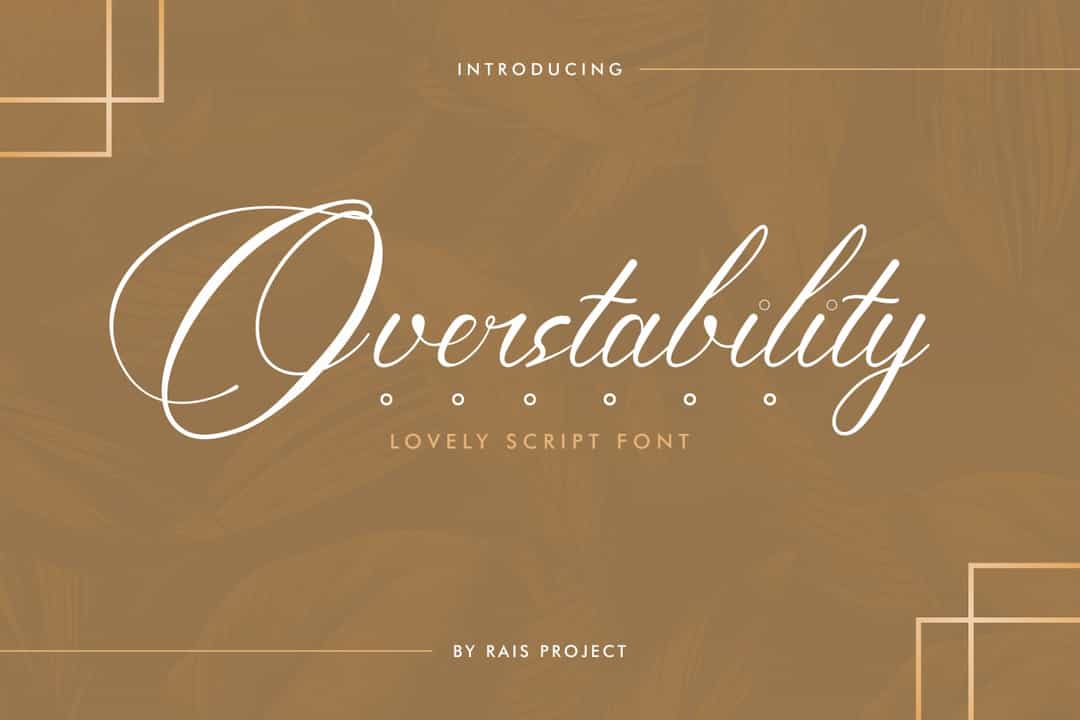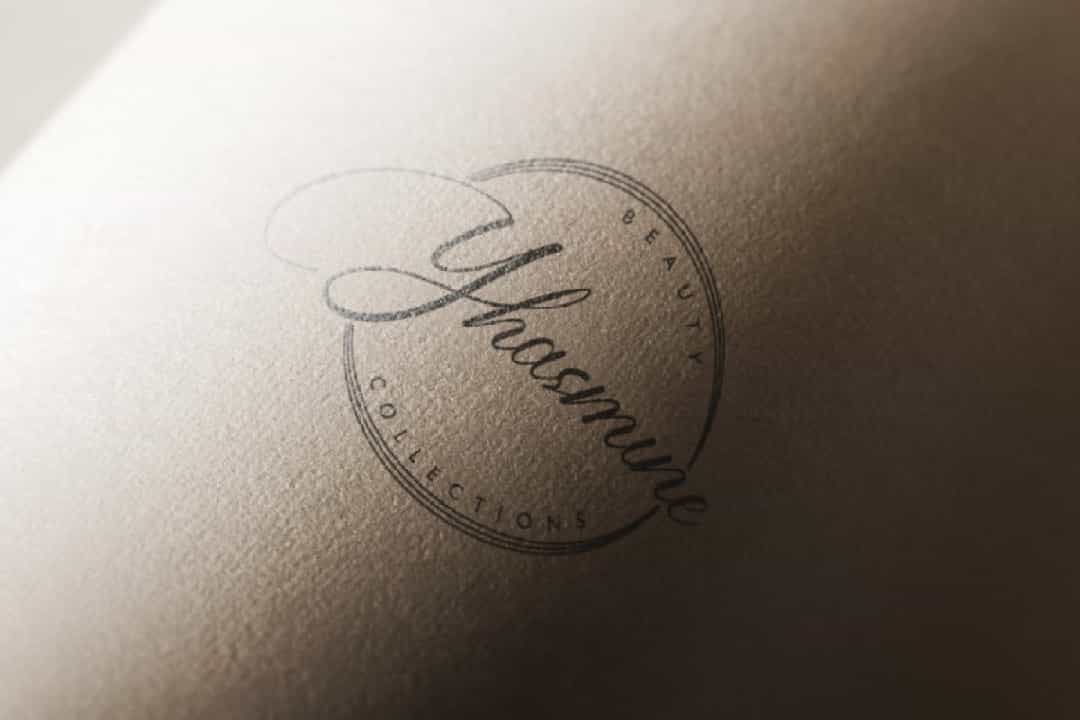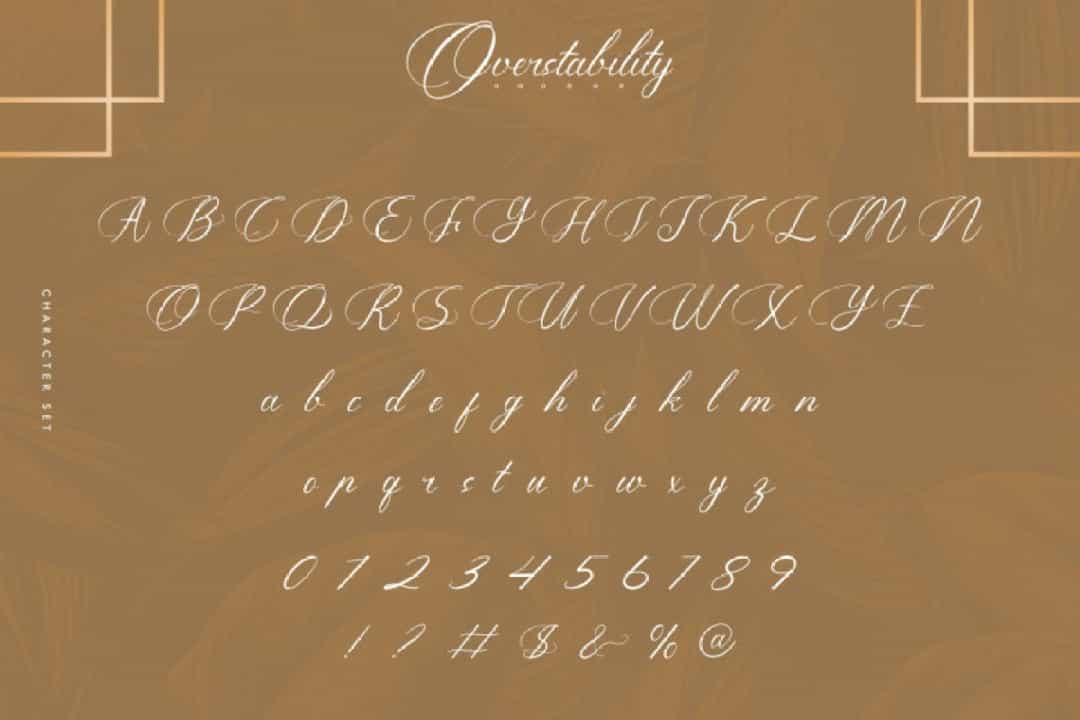
Overstability Calligraphy Font is handcrafted using simple characters for use in various projects requiring handwritten calligraphy such as events, games, promotions branding advertising magazines apps signage invitations stationery posts social media packaging products designs labels watermark comic or any other projects which call for calligraphy handwriting.